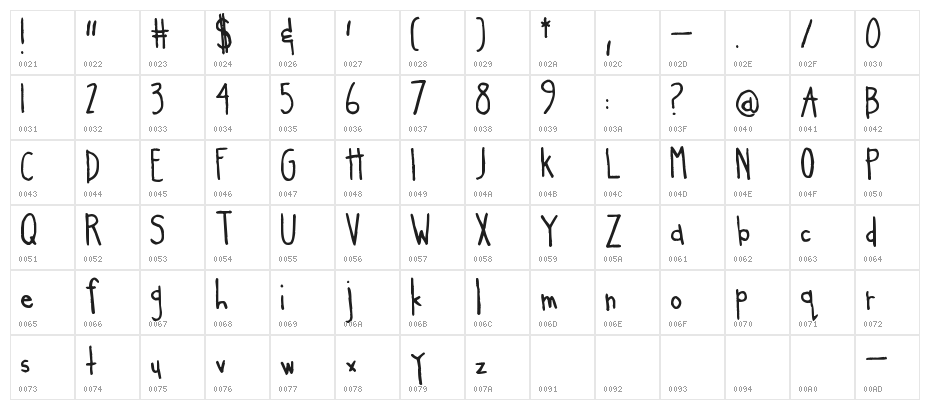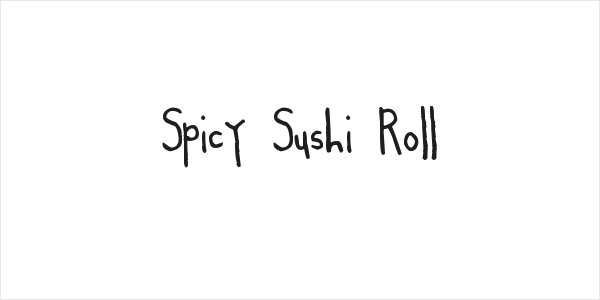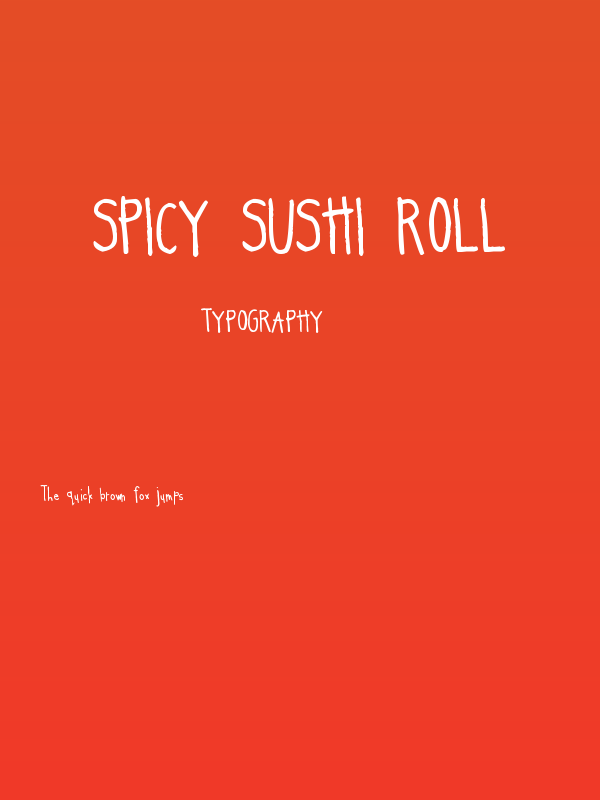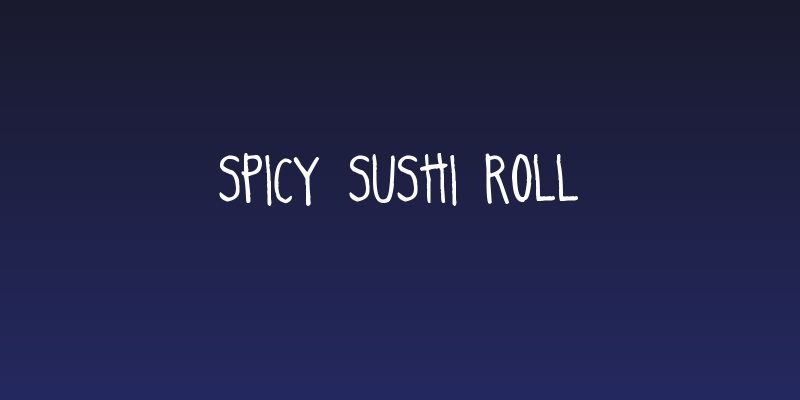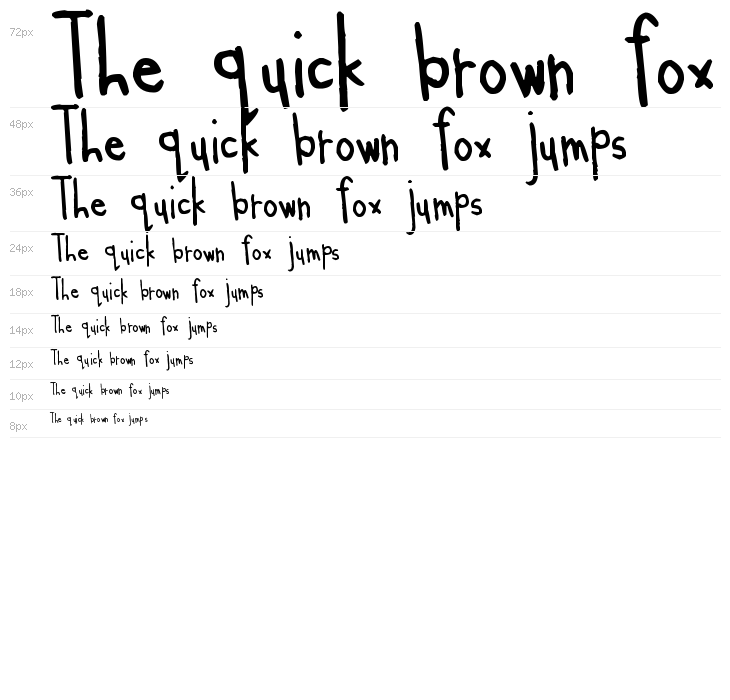
Spicy Sushi Roll Font
Spicy Sushi Roll Description
This font features a playful and casual handwritten style, characterized by its irregular strokes and slightly uneven baseline. The letters have a spontaneous, organic feel, with varying thickness in the strokes that adds a dynamic and lively touch. The uppercase and lowercase letters are distinct yet harmonious, maintaining a consistent style throughout. The numerals and special characters follow the same playful aesthetic, making the font versatile for creative projects. Its informal and friendly appearance makes it suitable for designs that aim to convey warmth and approachability.
| Use Case | Logos, Headlines, Informal Text |
| Proposed Projects | Ideal for greeting cards, children's books, casual branding, and social media graphics. |